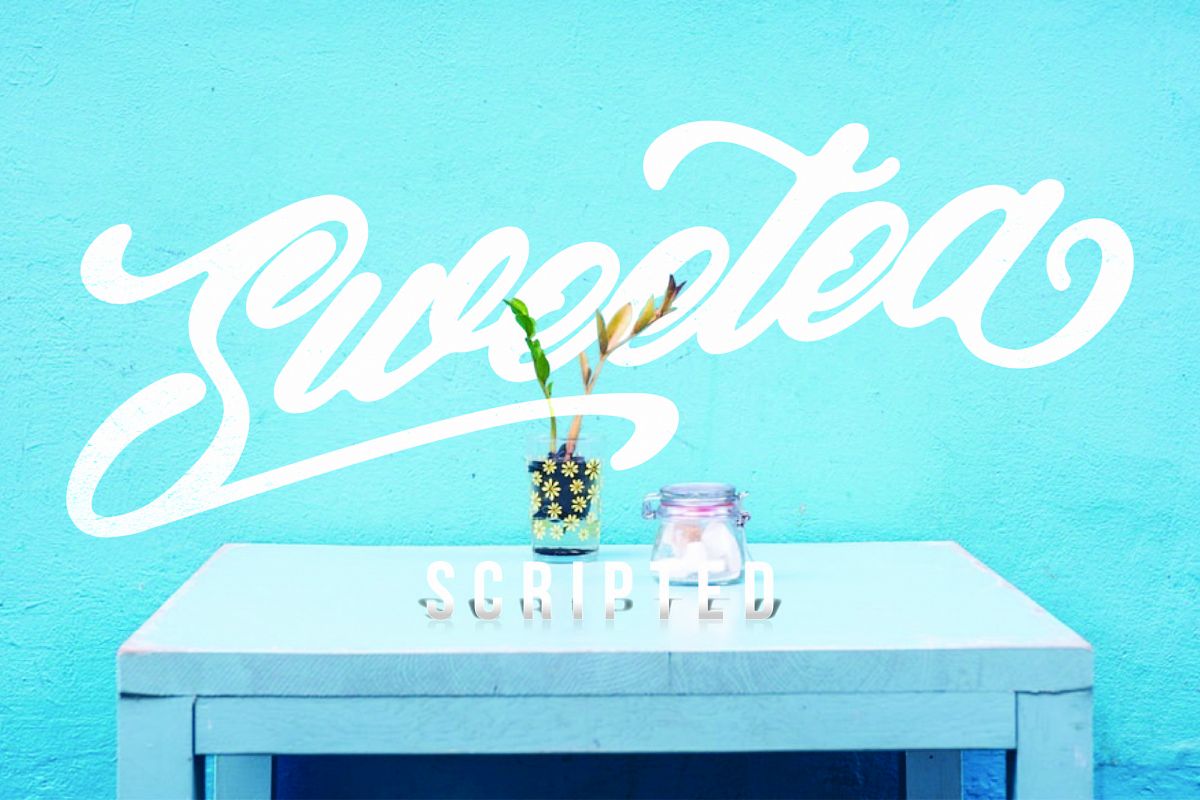
Sweetea Scripted
Sweetea Scripted is a typeface inspired by the glass of hot sweet tea presented in the morning. Sweet, and full of inspiration.
Designers can use this font for romantic themed design needs, affection, and love. Additionally, these fonts can also be used to create a headline magazine, storybook both children and adults, and so forth.